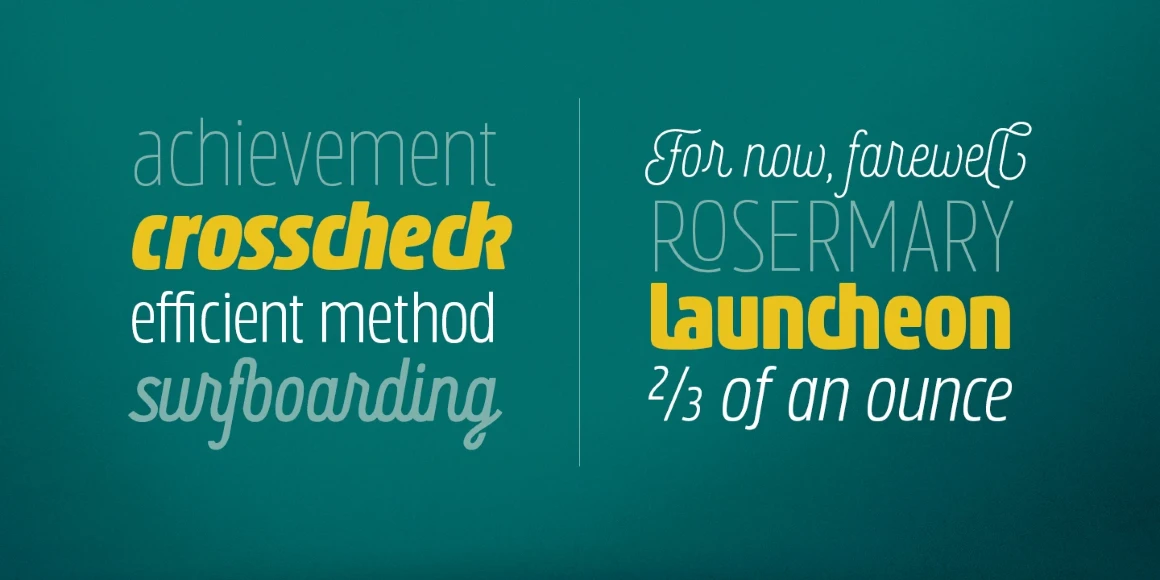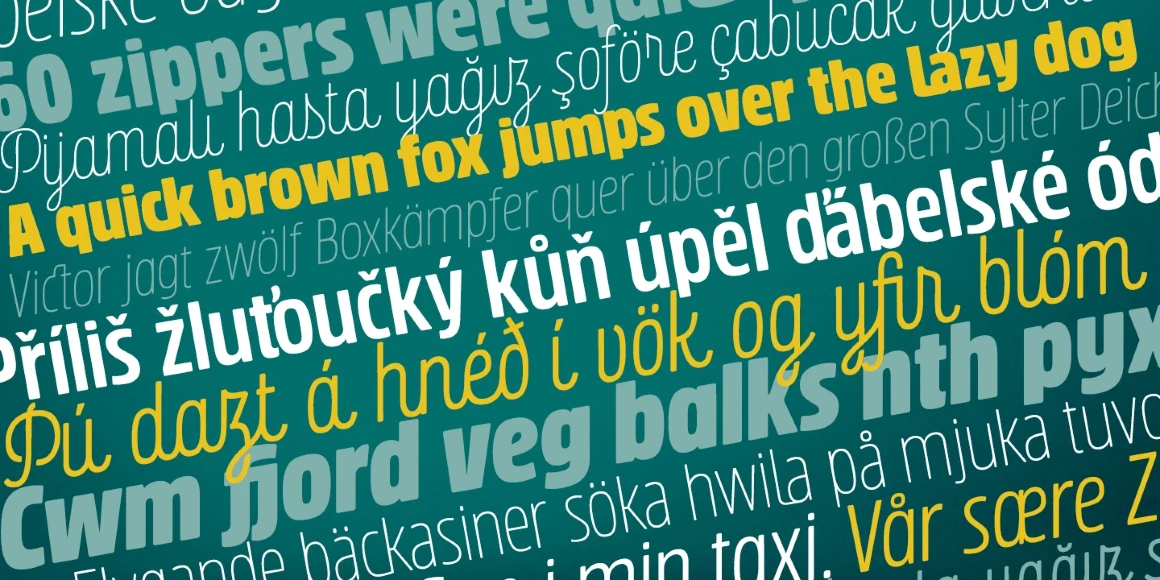
Rockeby
From My Creative Land
Please welcome the new grotesque family. It is slightly more geometric than Block Berthold but much softer than the industrial Din Next. Rockeby includes many stylistic alternates and ligatures to help add character to any design. The slightly curved diagonal strokes give these sans fonts their unique personality and soft look.
Designed by Elena Genova